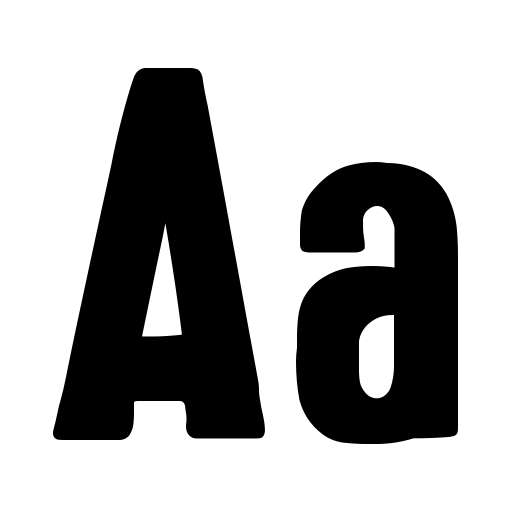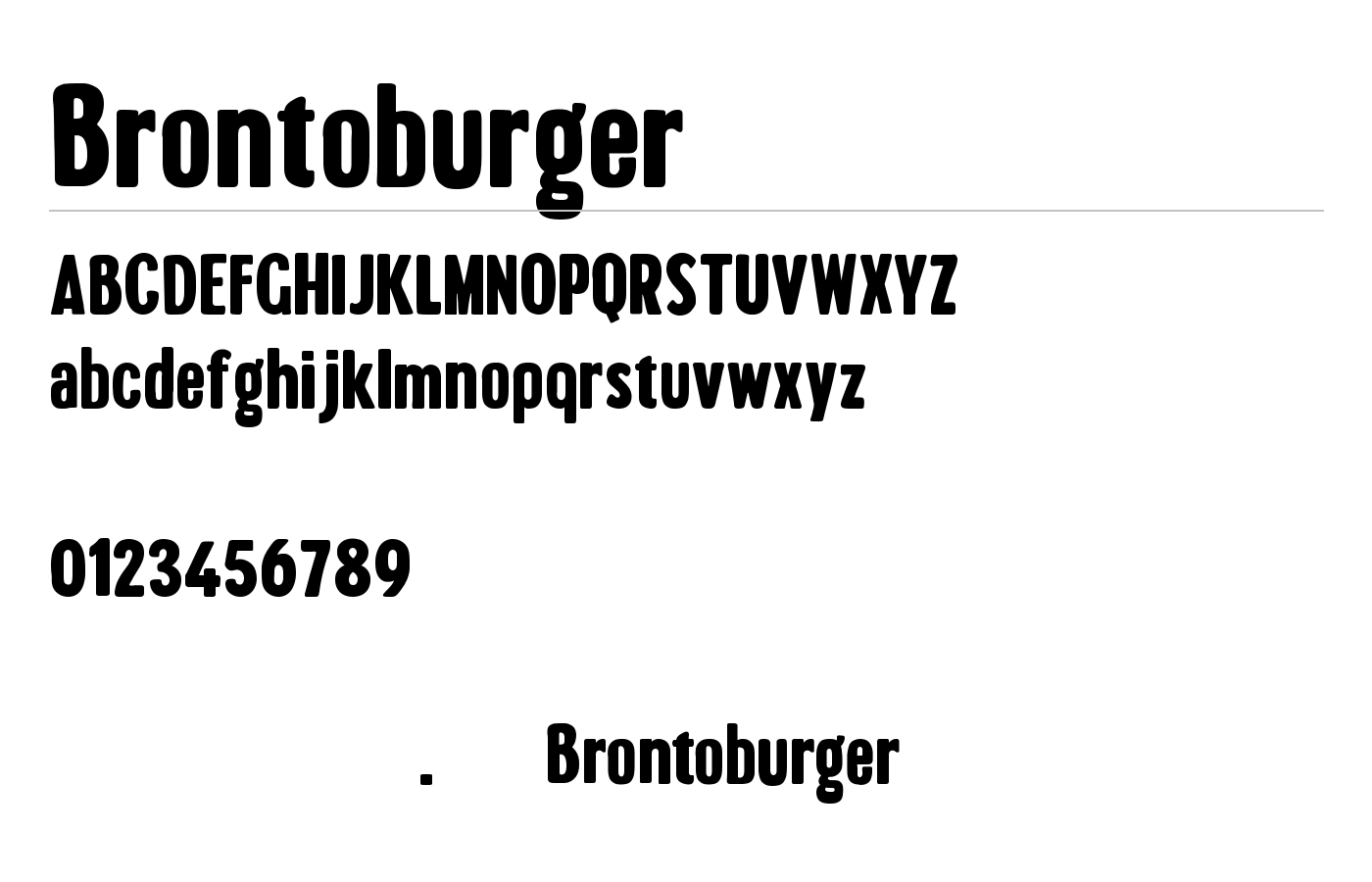
Brontoburger is a bold and condensed sans serif font with strong, rounded edges that give it a friendly yet impactful presence. Its high x-height and uniform stroke width make it highly legible and suitable for attention-grabbing headlines, logos, and branding that require a modern, approachable, and sturdy feel. This font works best in contexts where clarity and character are key, such as posters, packaging, and urban or casual-themed designs.
Brontoburger Font
About Brontoburger Font